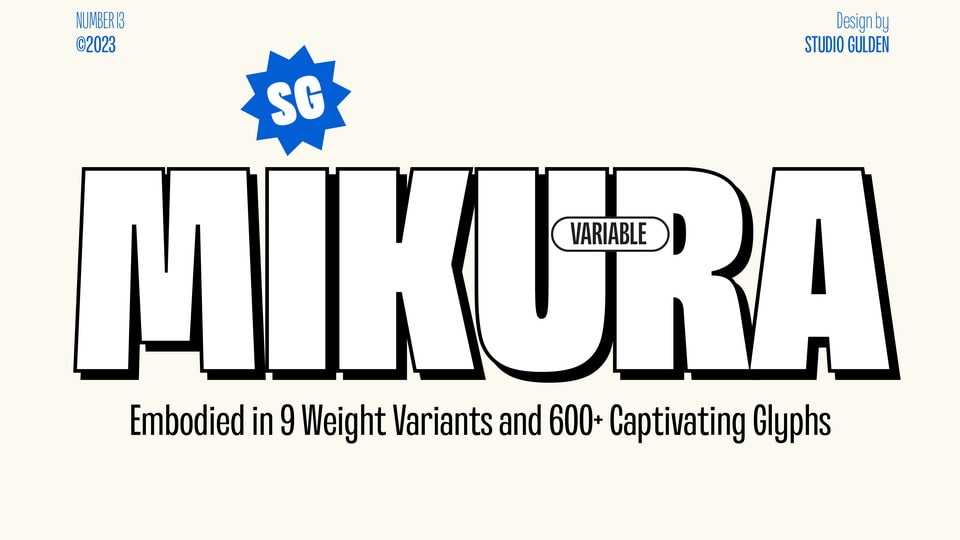
Download SG Mikura font, a versatile sans serif typeface that ranges from elegant finesse to bold statements, let be the cornerstone of your visual masterpiece. Discover the art of expression through typography today.
Designer: Studio Gulden